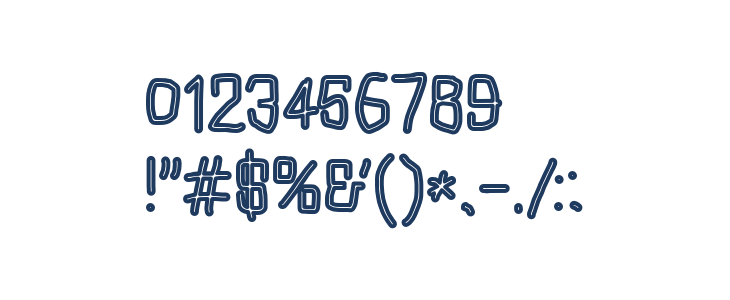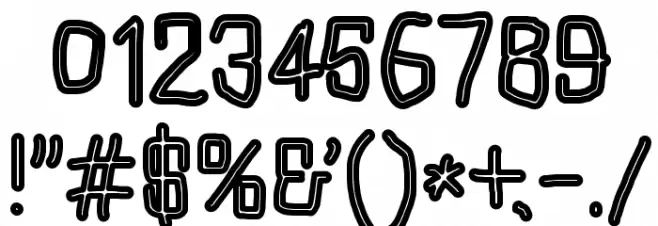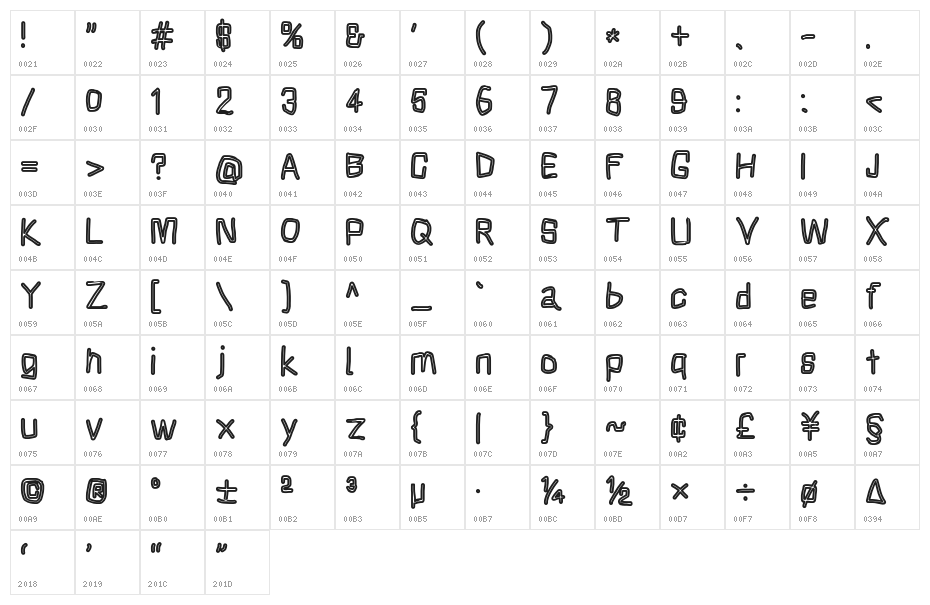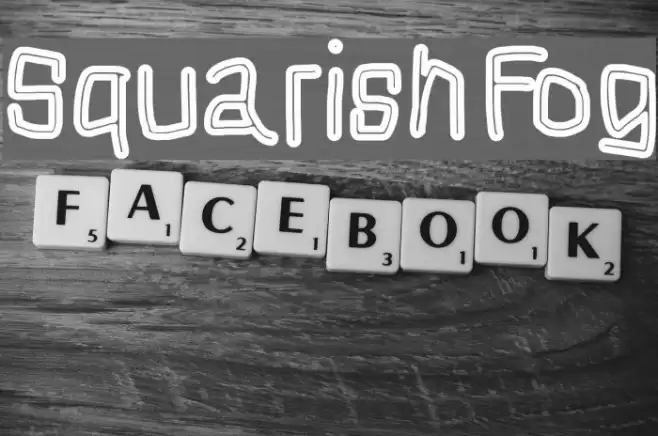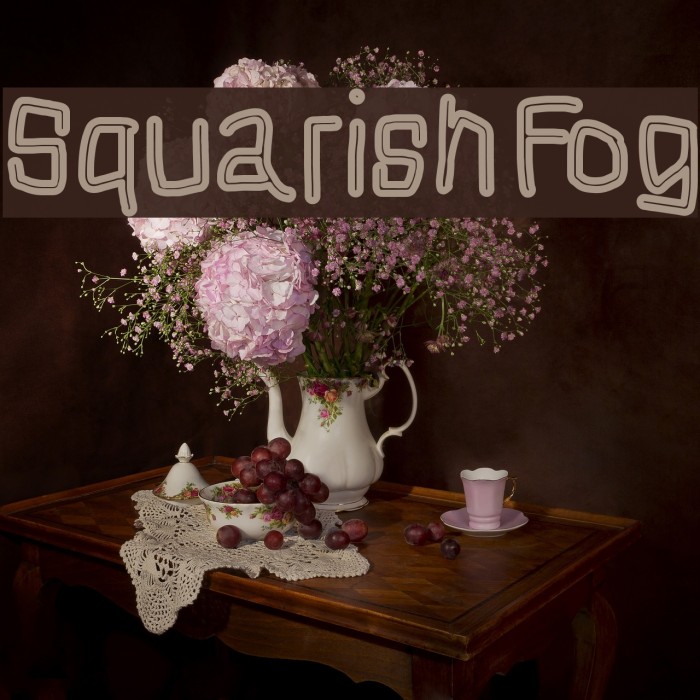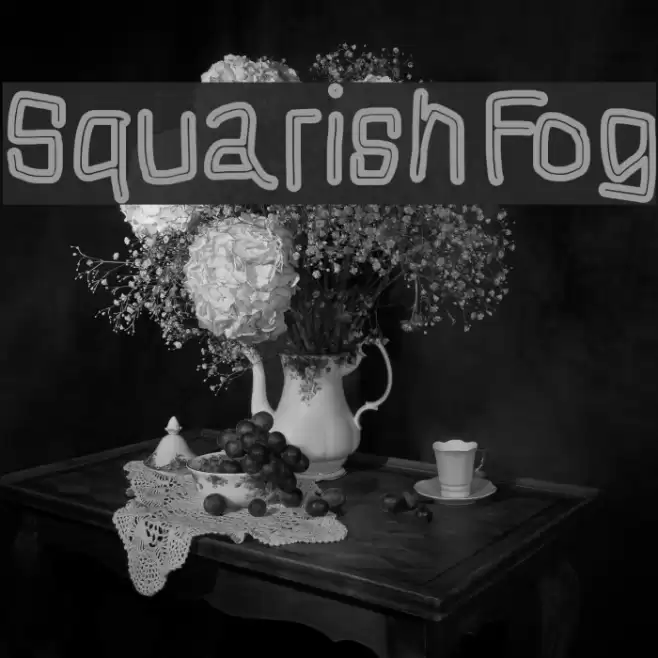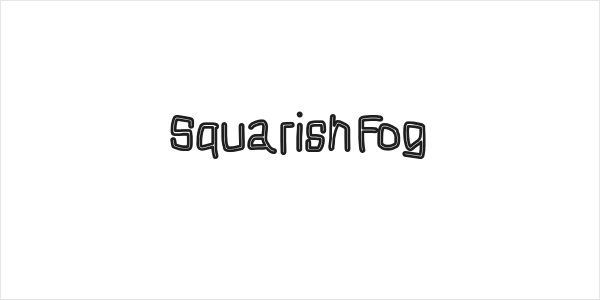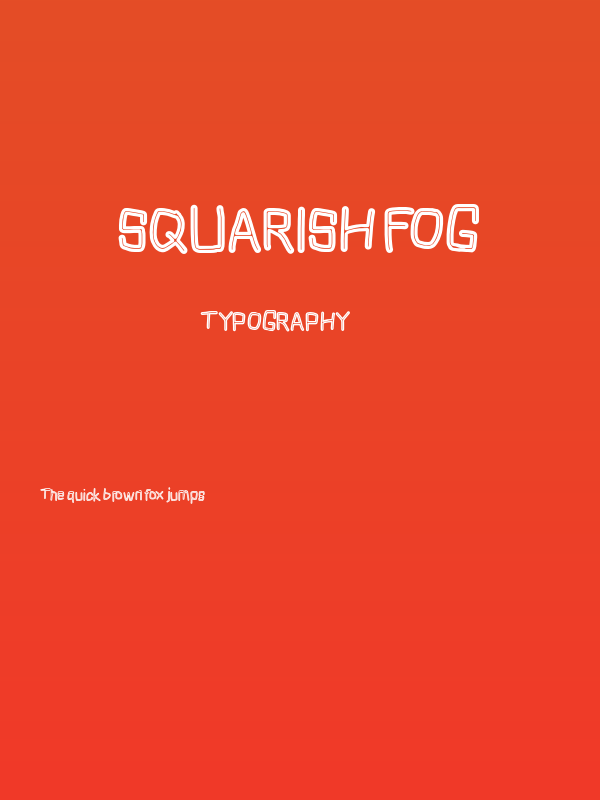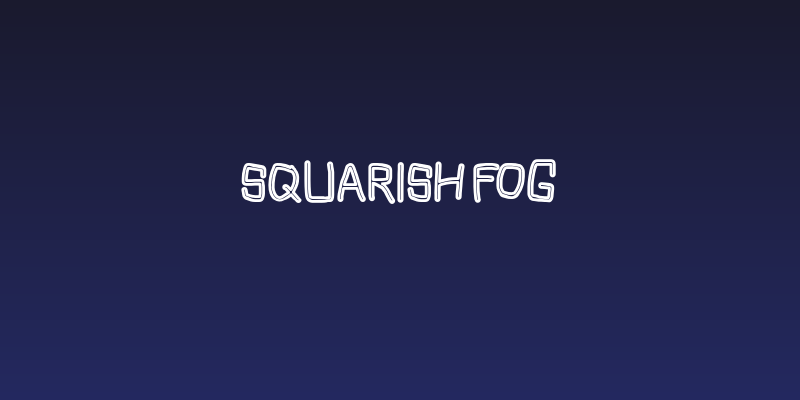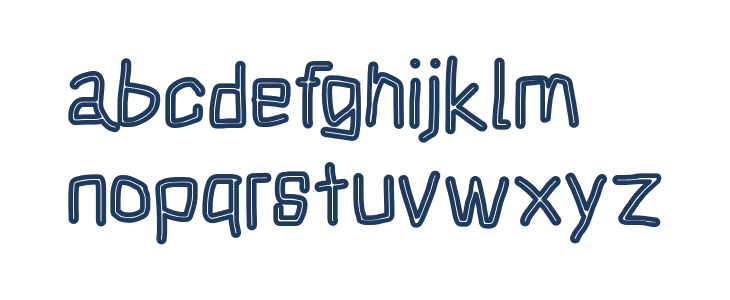
Squarish Fog Font
Squarish Fog Description
This font features a playful and quirky design with a hand-drawn aesthetic. The characters are outlined with a bold, uniform stroke, giving them a cartoonish and informal appearance. Each letter and number has a slightly irregular shape, adding to the whimsical feel. The font maintains a consistent width across all characters, creating a cohesive look. The special characters are designed with the same playful style, making them suitable for creative and informal projects. Overall, this font exudes a sense of fun and creativity, perfect for projects that aim to capture attention with a unique and lively style.
| Overall Style | Playful, Whimsical, Hand-drawn |
| Proposed Projects | Ideal for children's books, comic strips, playful branding, and creative posters. |